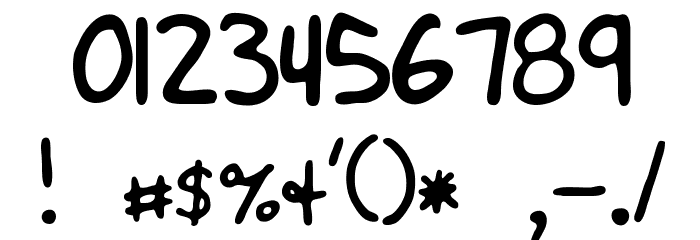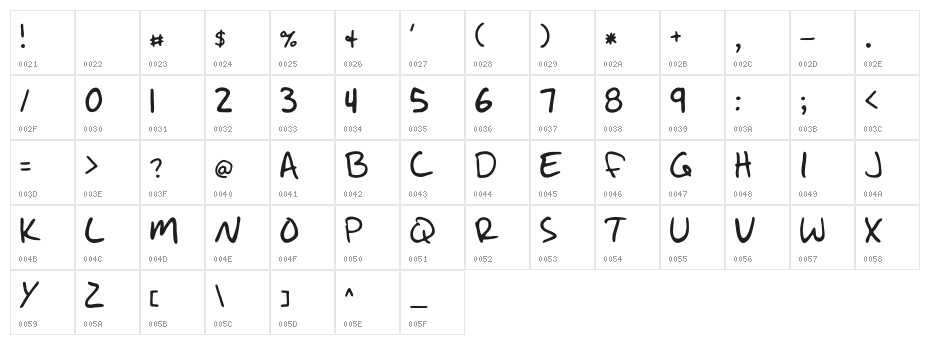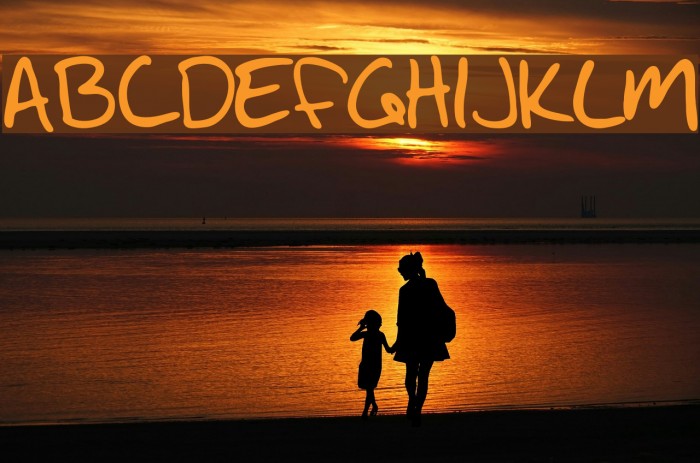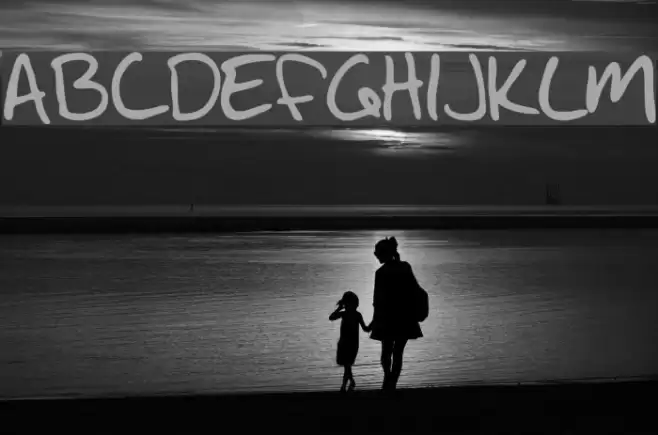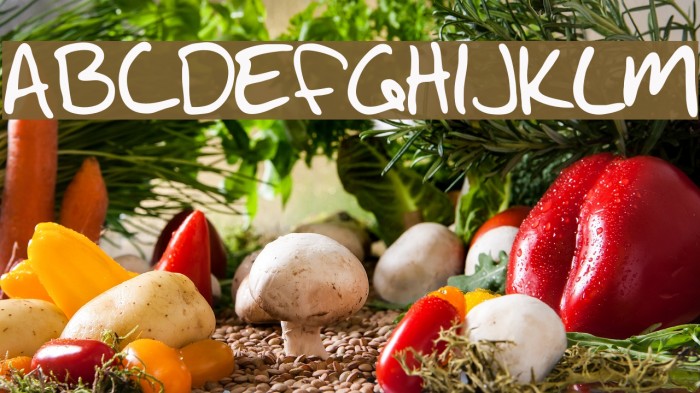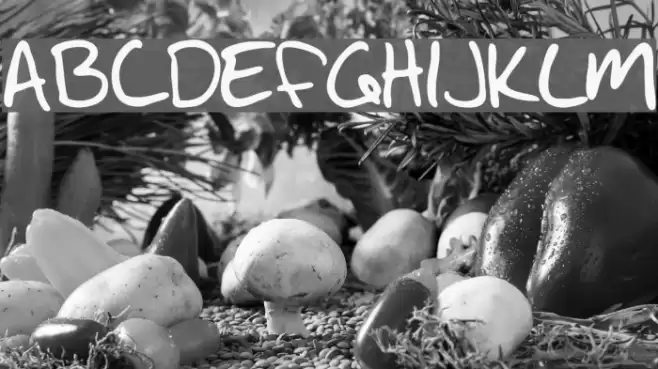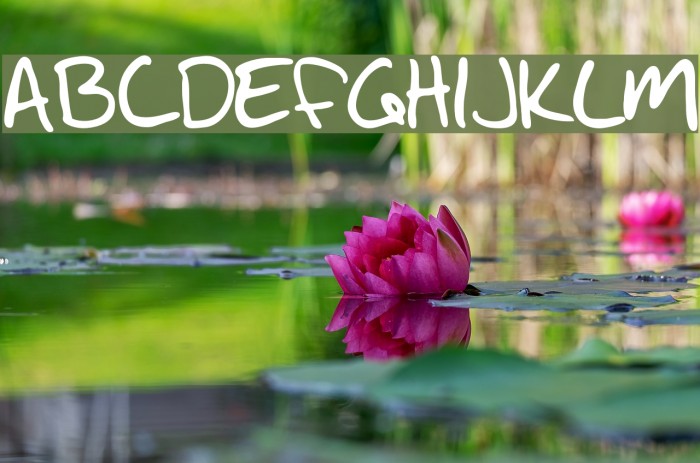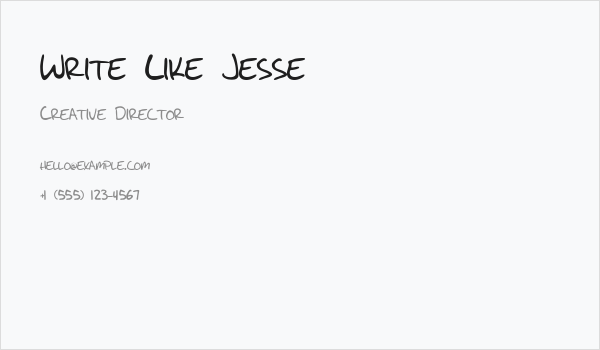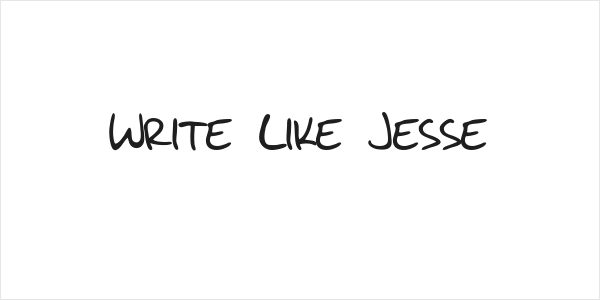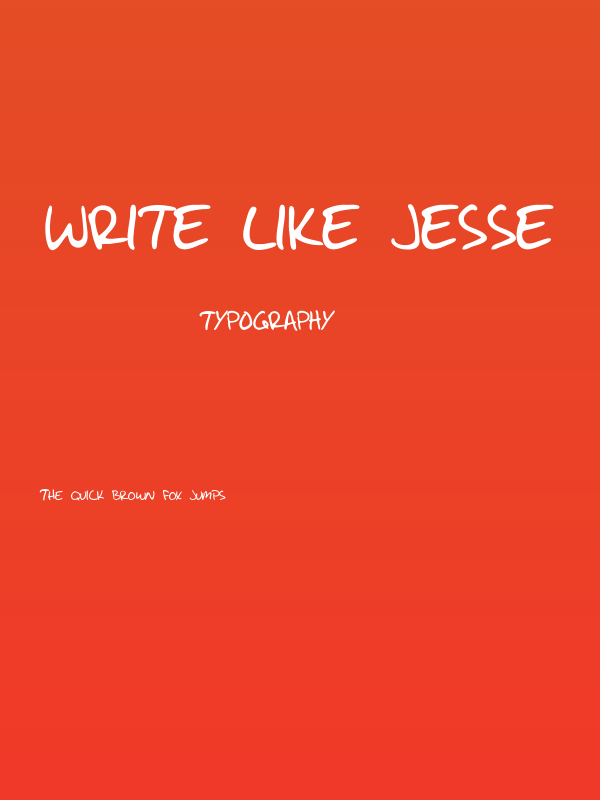
Write Like Jesse Font
Write Like Jesse Description
This font exudes a casual, handwritten style with a playful and informal vibe. The characters are bold and rounded, giving a sense of warmth and approachability. Each letter is slightly irregular, mimicking the natural flow of handwriting. The uppercase and lowercase letters maintain a consistent style, with smooth curves and a relaxed structure. The numbers and special characters follow the same aesthetic, ensuring a cohesive look across all elements. This font is perfect for projects that require a personal touch, such as greeting cards, invitations, or playful branding. Its legibility and charm make it suitable for both digital and print media.
| Proposed Projects | Ideal for greeting cards, invitations, playful branding, and personal projects. |